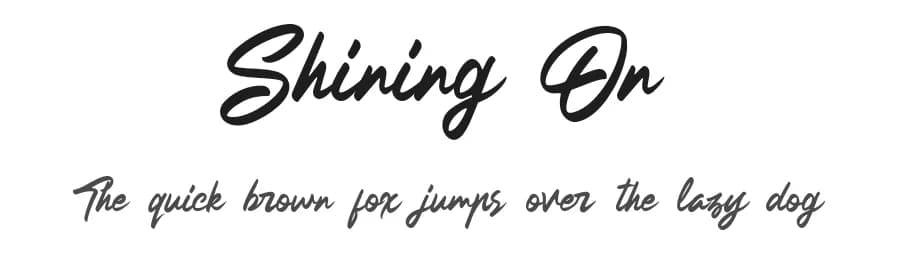
About Shining On Font
Shining On Specifications
| Designer | LutfyDuana_Luckysign |
Shining On Font is a script font that shines as a display or heading face. Pair it with a clean sans-serif or serif font for body text β the contrast creates a clear hierarchy while the two styles stay balanced and easy to read.
Shining On Font
by Luthfy Darsa